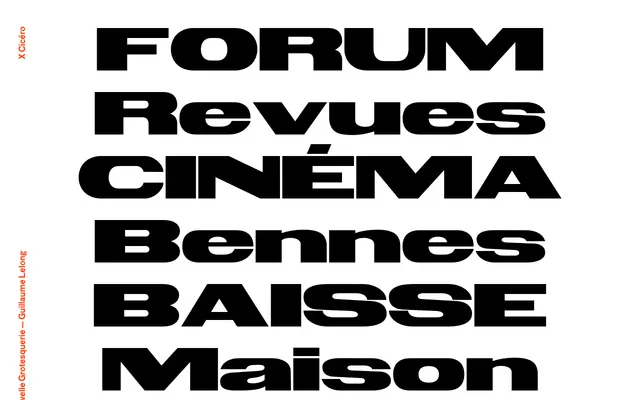
Nouvelle Grotesquerie
A grotesque sans from X Cicéro, the student type foundry at ESAD Grenoble-Valence, drawing on European grotesque conventions.
Nouvelle Grotesquerie is a grotesque sans-serif produced under X Cicéro, the type foundry associated with ESAD Grenoble-Valence. The name positions it within the French grotesque tradition, and the specimen text suggests use across editorial and display contexts. Further technical details such as weights, italics and language coverage are not available from the current page.
The name 'Grotesquerie' directly signals a grotesque sans-serif classification, consistent with the European grotesque tradition of flat, functional letterforms.